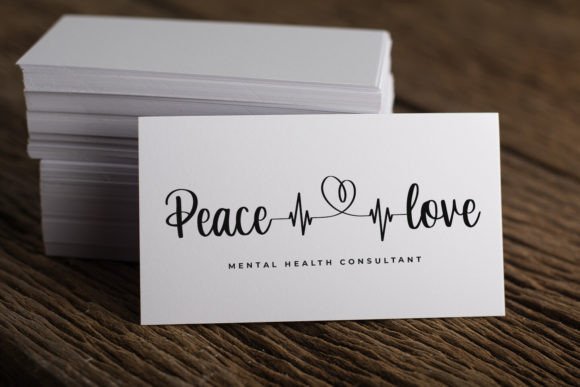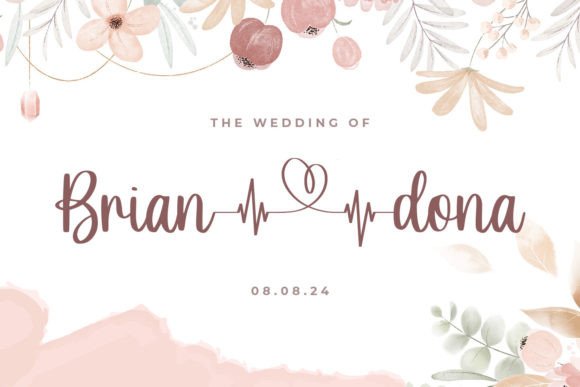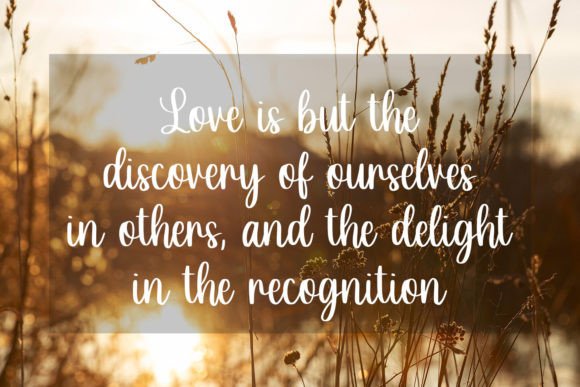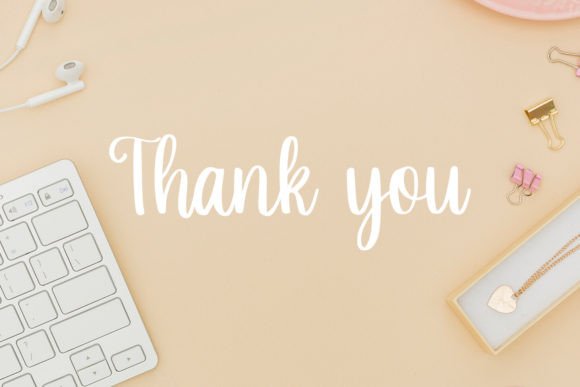
Heart Beat Font
HEART BEAT
– playful calligraphy font-
HEART BEAT is a unique bouncy calligraphy font.
It is great for branding, quotes, logos, t-shirt designs, tote bag designs, cards, banners, social media, and more.